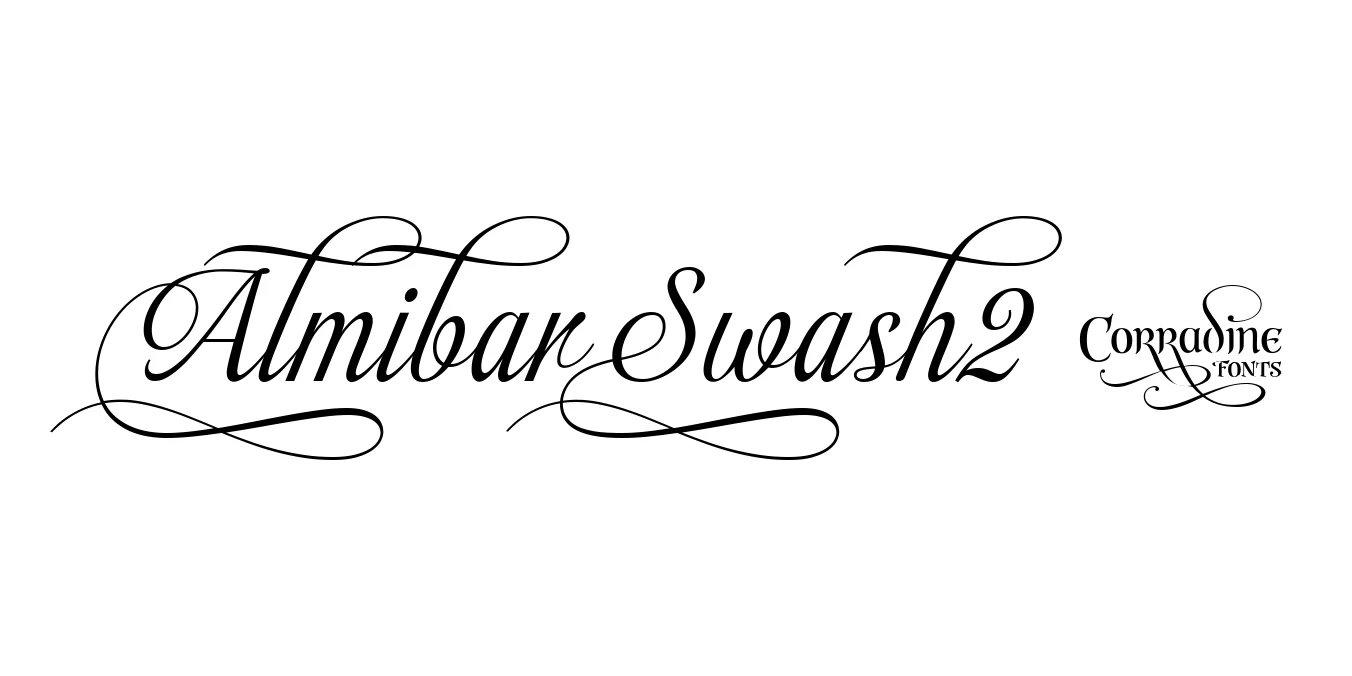
AlmibarSwash2 ☞
Designed by Manuel Eduardo Corradine
AlmibarSwash2 is a sophisticated calligraphic script that belongs to the wider Almibar family, known for its elegant and fluid strokes. This specific variant focuses on the ornate swashes and decorative flourishes that mimic high-end hand-lettering, providing a sense of luxury and traditional craftsmanship to any design project.
Developed by the renowned designer Manuel Eduardo Corradine, the font draws inspiration from classic formal scripts used in invitation design and gourmet branding. Its rhythmic ligatures and expansive terminals make it a preferred choice for designers looking to convey grace, romance, and high-status aesthetic in a digital format.
AlmibarSwash2 ☞ Best Uses
Perfect for creating romantic and formal names or headers.
Ideal for high-end fashion logos and perfume packaging.
Enhances the aesthetic of fine dining and artisanal menus.
Adds a heartfelt and sophisticated touch to special occasion cards.